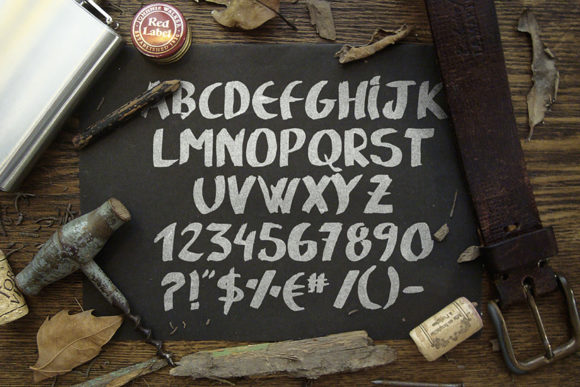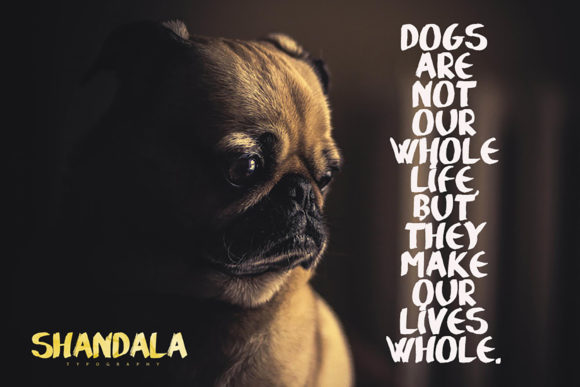
Introduction to Shandala Font
Have you ever been in the midst of a creative project, pouring your heart and soul into every detail, only to realize that the perfect font is missing? That’s exactly what happened to me when I stumbled upon the enchanting Shandala Font. Its unique, handmade brush strokes captivated me, and I knew I had to share it with fellow designers.
As a valuable design resource, the Shandala Font is perfect for adding a touch of elegance and sophistication to any project. With its high-quality, transparent background, it’s ideal for creating stunning graphics, logos, and even digital art. And the best part? It’s available for free download, making it an accessible addition to any designer’s toolkit.
Key Features of Shandala Font
- Unique and creative design perfect for various creative projects and designs
- High-quality design with a transparent background for easy customization and editing
- Perfect for use in digital designs, including websites, social media, and mobile applications
- Designed to be scalable, with resolutions up to 300 DPI for crisp and clear display
- Includes a range of weights and styles to suit various design needs and preferences
Honest Review: Shandala Font
As a designer, I’m always on the lookout for high-quality design resources that can elevate my creative projects. Recently, I stumbled upon the Shandala Font, and I’m excited to share my honest review with you.
What works well: ✨ The Shandala Font is incredibly versatile, with a range of styles and weights that make it perfect for various design applications. I love that it’s available for free download, making it an excellent addition to any designer’s arsenal. The transparent background option is also a bonus, allowing for seamless integration with any design element.
What doesn’t work well: ⚠️ While the Shandala Font is an excellent addition to any design resource library, I do wish it had more language support. Currently, it’s only available in a limited number of languages, which may be a drawback for some designers working on international projects.
Overall, I’m impressed with the Shandala Font and would highly recommend it to fellow designers. Its versatility, high-quality design, and transparent background option make it a valuable addition to any creative project. Just be aware of its language limitations before incorporating it into your design resource library.
Tips for Getting the Most Out of Shandala Font
Shandala Font is a versatile design resource that can be used for a variety of creative projects. To get the most out of it, use it on a transparent background to add a touch of elegance to your design. You can also use it in combination with other design elements to create a unique and eye-catching design.
Shandala Font is commonly used in wedding invitations, business cards, and other design projects where a touch of elegance is required. It is also used in social media graphics, brochures, and other marketing materials where a high-quality design resource is needed.
Alternatives to Shandala Font
The Great Vibes Font is a beautiful, elegant script font perfect for creative projects that require a touch of sophistication. It’s available for free download and features a transparent background, making it ideal for use on transparent backgrounds. Great Vibes is a high-quality font that’s great for headings, quotes, and other design elements where a elegant feel is desired.
Compared to Shandala Font, Great Vibes has a more refined and polished look, making it suitable for a wider range of design applications.
The Alex Brush Font is a handwritten script font that’s perfect for designers looking for a unique and creative touch. It’s available for free download and features a high-quality design that’s suitable for use in a variety of creative projects. Alex Brush is great for use in headings, titles, and other design elements where a personal touch is desired.
While the Shandala Font is a high-quality design resource, it is not intended to be modified or edited. However, you can use font editing software to customize the font’s appearance, such as changing the color or adding effects. Keep in mind that any modifications may affect the font’s original design and functionality.
Does the Shandala Font include a transparent background?
No, the Shandala Font does not include a transparent background. However, you can easily create a transparent background using image editing software or design applications that support layering and masking.